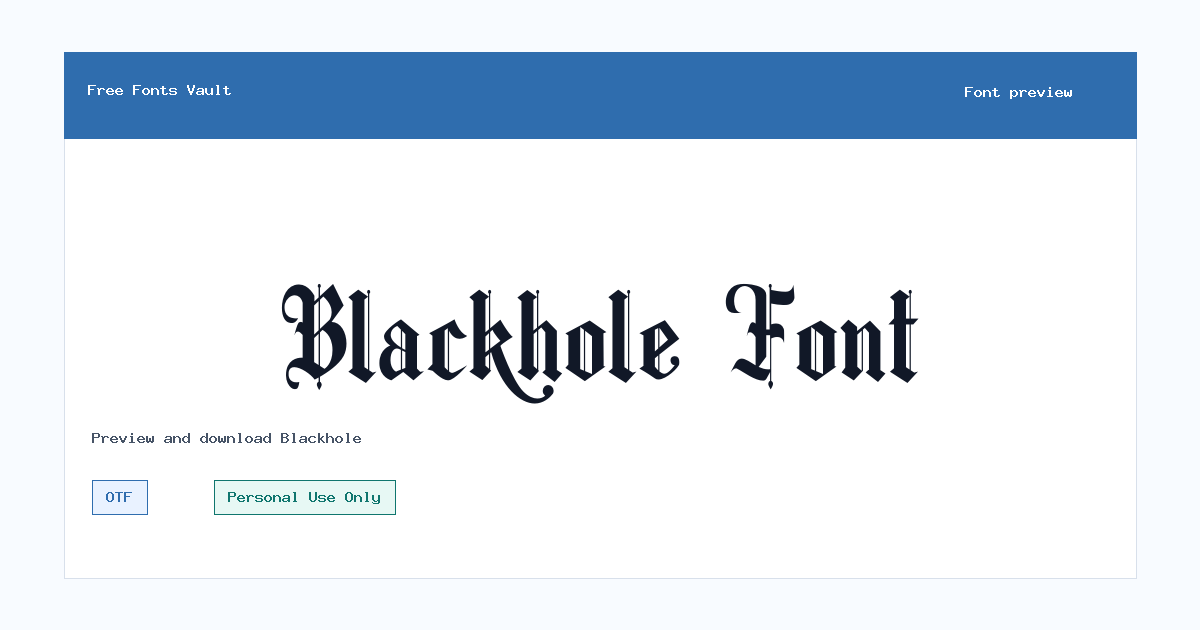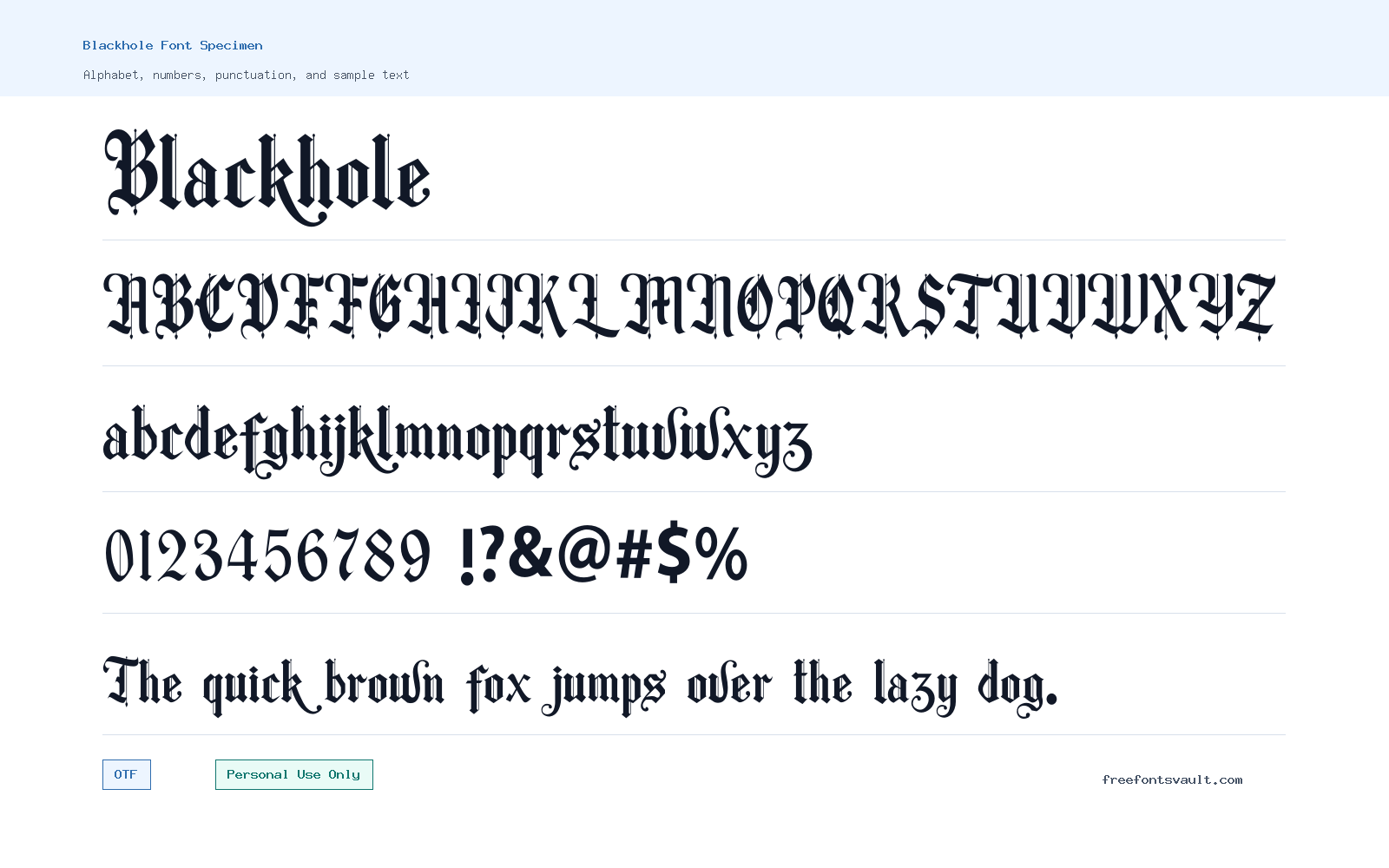
Blackhole
- Designer Miftahul Arzaq
- Foundry Arzaq Studio
Blackhole font.
Blackhole is a heavy blackletter-style display font with a dark, sharp look built for short text that needs impact. It is best treated as a headline font, not a long-reading typeface.
About Blackhole Font
Blackhole uses dense letter shapes, strong vertical strokes, and pointed details that give it a gothic display feel. The available style is a regular OTF file with a very bold weight, so it works best when the text has room to breathe. Use it for words or short phrases where the letter shapes can become part of the design, such as poster titles, music artwork, apparel graphics, tattoo-style mockups, stickers, thumbnails, and dramatic headings. Because the forms are decorative, the font is most effective at larger sizes where the inner shapes and sharp edges remain clear.
- Heavy blackletter-style display letters with sharp decorative details
- Poster titles, album or music artwork, apparel graphics, and bold social media headings
- Short wordmarks, tattoo-style mockups, stickers, thumbnails, and gothic-themed display text
Blackhole is credited to designer Miftahul Arzaq and foundry Arzaq Studio.
Use Blackhole at large sizes with short text. Pair it with a simple sans serif for supporting copy, and always preview your exact words before finalizing spacing or layout.
What kind of font is Blackhole?
Blackhole is a decorative blackletter-style display font with a heavy, gothic look. It is meant for titles and short text rather than long paragraphs.
Where does Blackhole work best?
It works best in large display settings such as posters, album art, apparel graphics, thumbnails, stickers, and dramatic headings.
How should I pair Blackhole with other fonts?
Pair it with a clean sans serif or simple serif for small text. Avoid using another decorative font beside it, because the design can become hard to read.